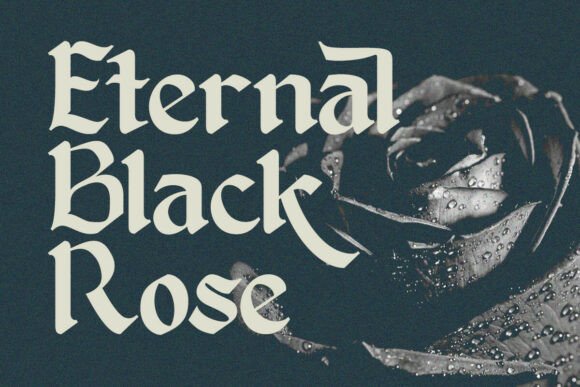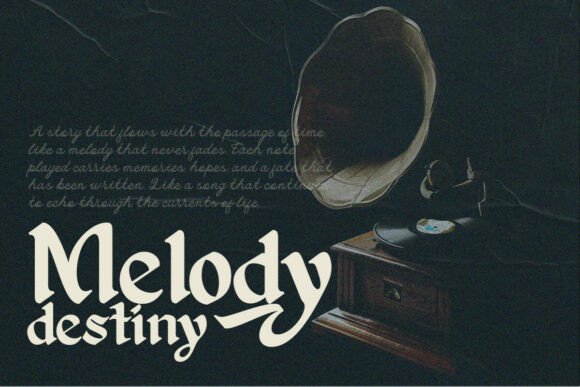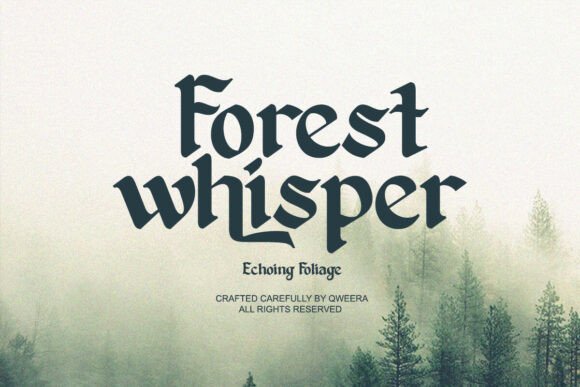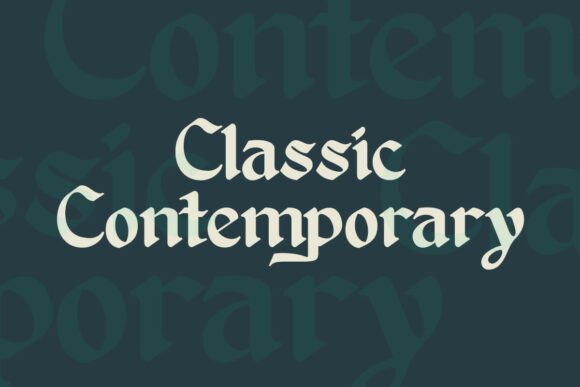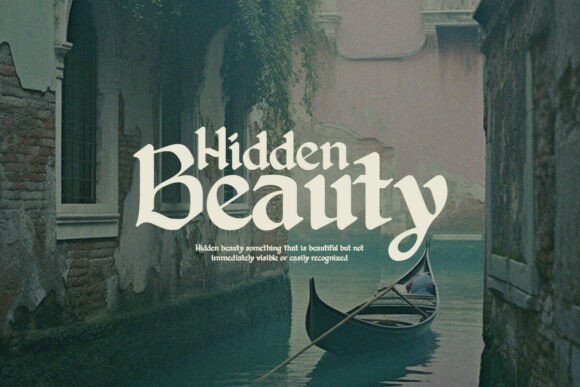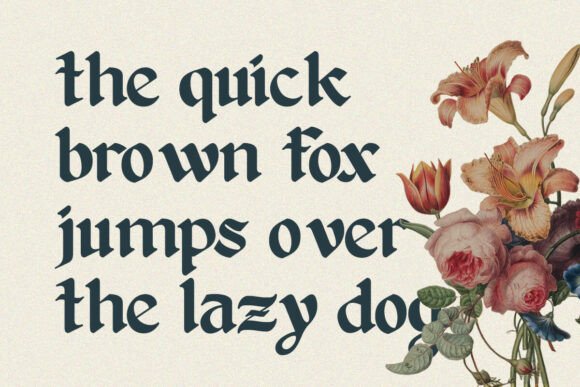
Introduction to Qimorla Font
Qimorla – Blackletter Typeface for Bold, Dramatic Design Qimorla is a bold blackletter typeface that fuses traditional gothic calligraphy with sharp, modern styling.
Available in both regular and italic styles, it features intricate ligatures and alternates that allow for striking, expressive typography across a wide range of design applications Its angular forms, ornate details, and flowing connections give Qimorla a strong visual presence, ideal for projects that require dramatic impact.